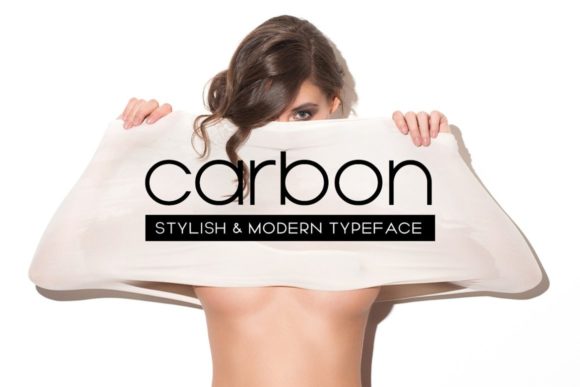
The Designer’s Delight: Exploring the Elegance of Carbon Font
Carbon is a minimal and neat display font that can easily be matched to an incredibly large set of projects. Its clean lines and elegant curves make it perfect for adding a touch of sophistication to your creative ideas. In this article, we’ll dive into the world of Carbon Font, exploring its features, and how to make the most of it in your designs.
What I Love About Carbon Font
- ✨ Versatility: Carbon Font is incredibly versatile, making it suitable for a wide range of projects, from branding and advertising to packaging and digital media.
- ✅ Elegant Design: The font’s clean lines, elegant curves, and minimalist aesthetic make it perfect for creating sophisticated and modern designs.
- 💡 Excellent Legibility: Carbon Font is highly legible, even at small sizes, making it ideal for use in body text or captions.
While Carbon Font is an excellent choice for many projects, it’s not without its limitations. For example:
- ⚠️ Limited Character Set: Carbon Font may not have an extensive character set, which can limit its use in certain projects that require a wide range of special characters.
- 🤔 Not Suitable for Body Text: While Carbon Font is legible, it’s not the best choice for body text due to its elegant and refined design. It’s better suited for headings, titles, and captions.
The Designer Behind Carbon Font: A Backstory
Carbon Font was designed by a team of talented typographers who aimed to create a modern and elegant display font. The design process involved extensive research and experimentation to create a font that’s both versatile and refined. The result is a font that’s perfect for adding a touch of sophistication to your designs.
Q: What is Carbon Font?
Carbon Font is a modern and elegant display font designed for use in a wide range of creative projects.
Q: Is Carbon Font suitable for body text?
While Carbon Font is legible, it’s not the best choice for body text due to its elegant and refined design. It’s better suited for headings, titles, and captions.
Q: Does Carbon Font have OpenType features?
Yes, Carbon Font has OpenType features, including glyphs and stylistic alternates, which can be used to add more creativity to your designs.